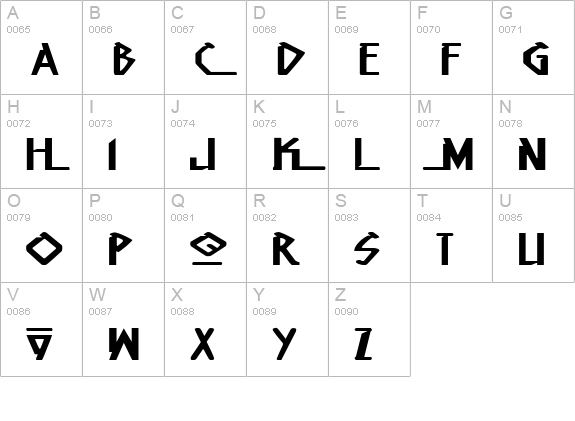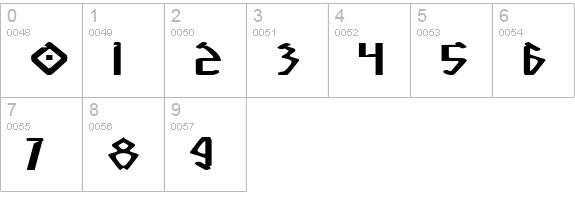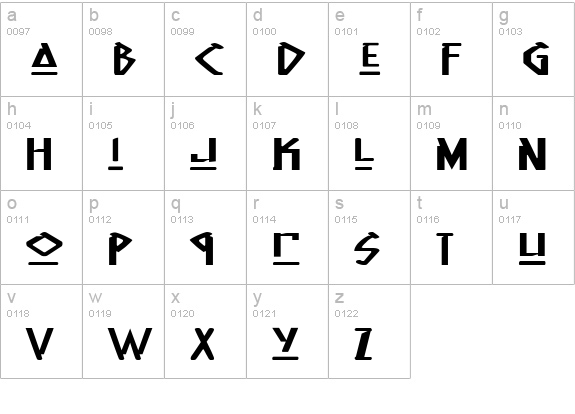
Native Alien Extended is a distinctive, extended-width variant in the Native typeface family \xE2\x80\x94 well suited to design and typography projects.
Introducing the captivating Native Alien Extended font, a unique and futuristic typeface that seamlessly blends elements of the natural world with a touch of extraterrestrial mystery. This innovative font features elongated and slightly distorted letterforms that exude a sense of otherworldly elegance and sophistication. Perfect for projects that demand a bold and unconventional look, Native Alien Extended font is sure to make a lasting impression. What's even more exciting is that Native Alien Extended font is available for free download at FontsMarket.com! Don't miss out on the opportunity to add this striking typeface to your design arsenal and unleash your creativity with its mesmerizing charm. Whether you're working on branding, editorial design, or any other creative project, Native Alien Extended font will elevate your work to new heights. Embrace the fusion of nature and outer space with this stunning font and let your imagination soar.